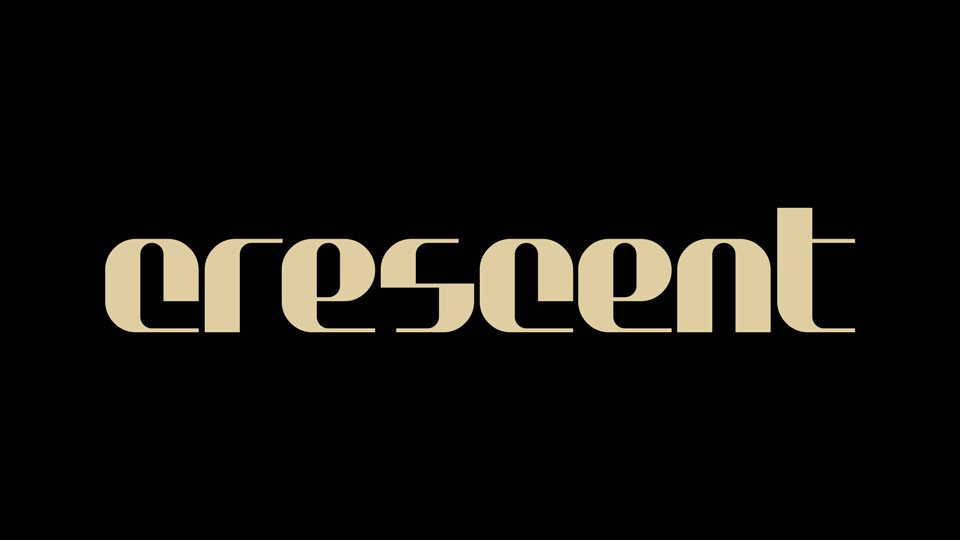
Download Crescent font, a high-contrast display typeface based on modules and grid. With its fun and funky look Crescent font is best for posters, branding, ads and typography artworks.
Designer: frongile